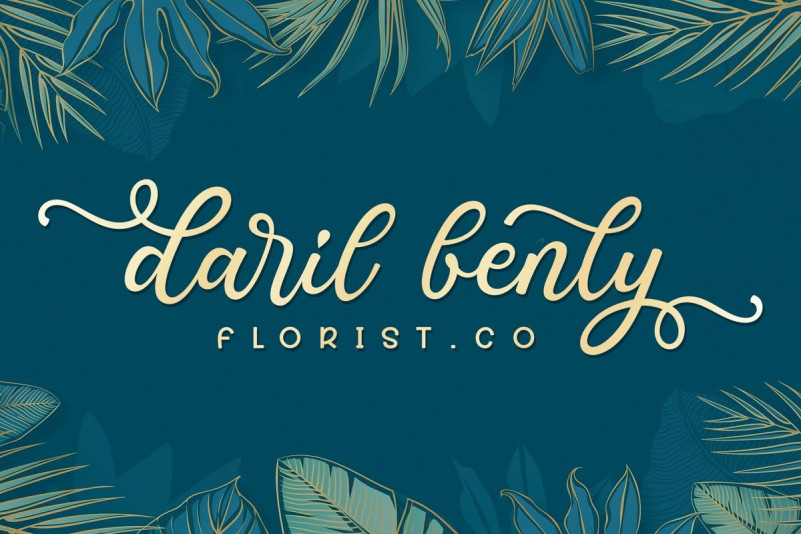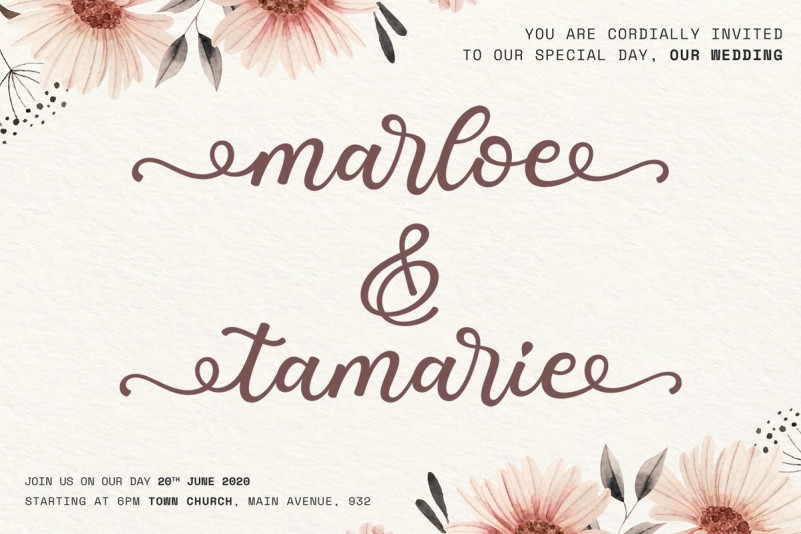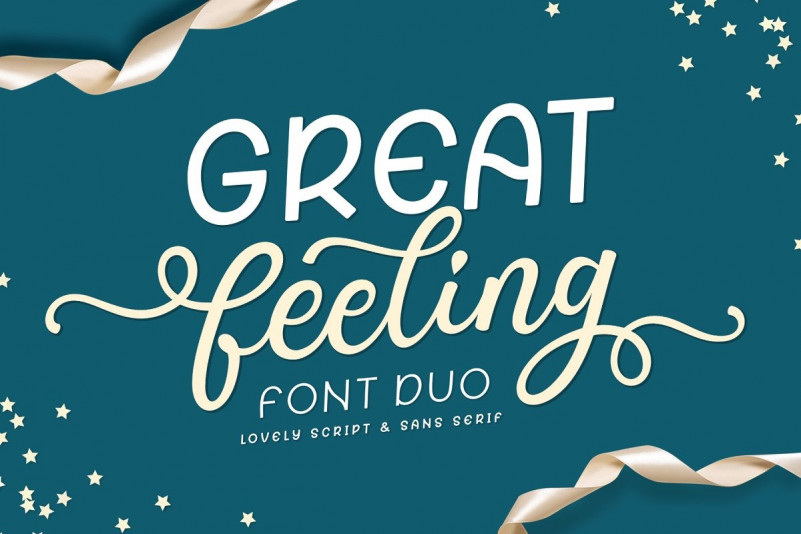
Feeling Script Font
Hello, This is our newest product called “Great Feeling Duo“.’ This is a font duo consisting of lovely script fonts and fancy sans serif, it can be paired with each other. Great Feeling comes with Great Feeling Script that contains tons of alternates and ligatures, and Great Feeling Sans that a fancy styles. Great Feeling Duo is a really great font for a logo, clothing, headline, wedding invitation, poster, clothing, advertising and many more.